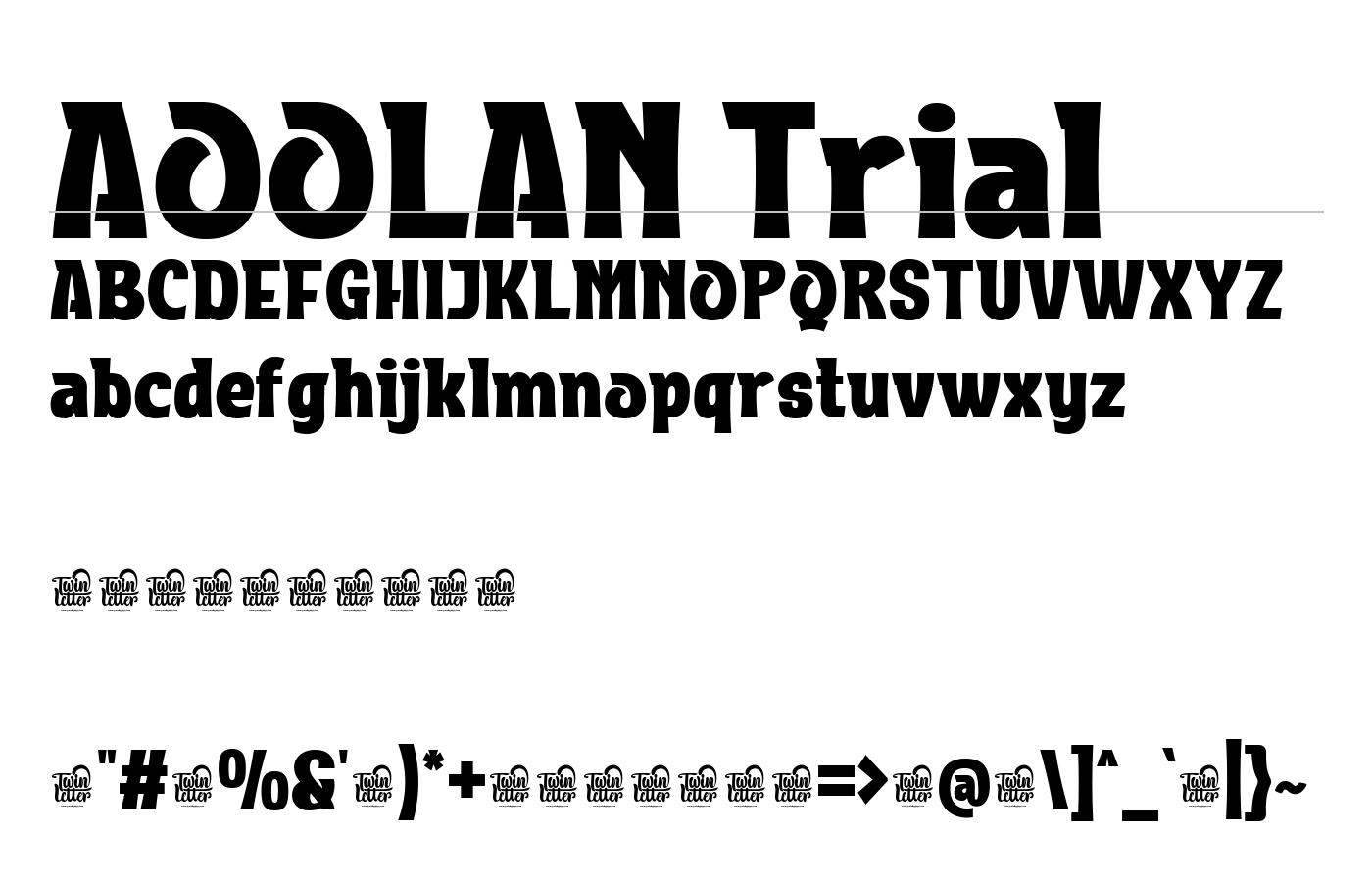
The AOOLAN Trial font is a bold serif typeface with a strong, theatrical character, featuring thick strokes and slightly condensed letterforms that create a striking presence. Its quirky, uneven shapes and moderate contrast give it a playful yet vintage vibe, making it ideal for eye-catching headlines, logos, and posters where a dramatic, memorable impact is desired. This font works particularly well for creative branding and display purposes that call for a distinctive, authoritative style with a touch of personality.
AOOLAN Trial Font
About AOOLAN Trial Font